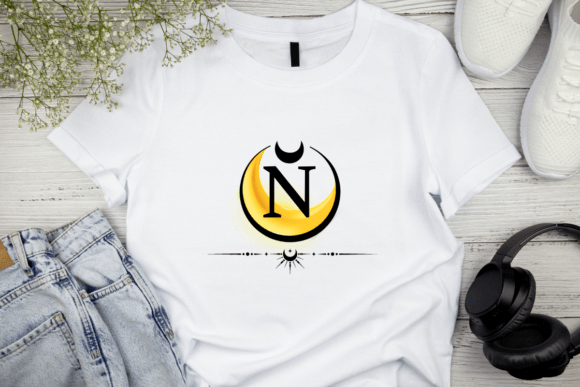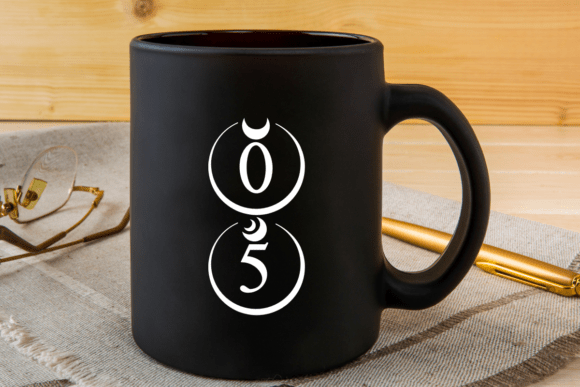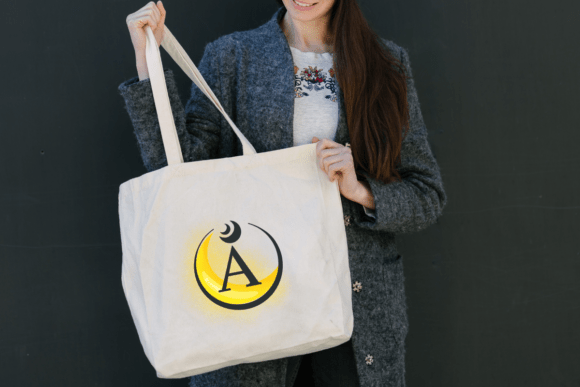
Introduction to Moon Night Monogram Font
Introducing Moon Night Monogram, a striking decorative font adorned with elegant subtleties.
Its versatility lends itself flawlessly to creative note-taking, unique diary entries, and heartwarming greeting card designs Gaze beyond the obvious, this font flawlessly transitions from intimate, personal use to a wide array of applications.
Key Features of Moon Night Monogram Font
Why Choose Moon Night Monogram Font?
Moon Night Monogram Font offers exceptional quality and versatility, making it a valuable addition to your design toolkit. Whether you’re creating for personal projects or commercial use, Moon Night Monogram Font delivers professional results.